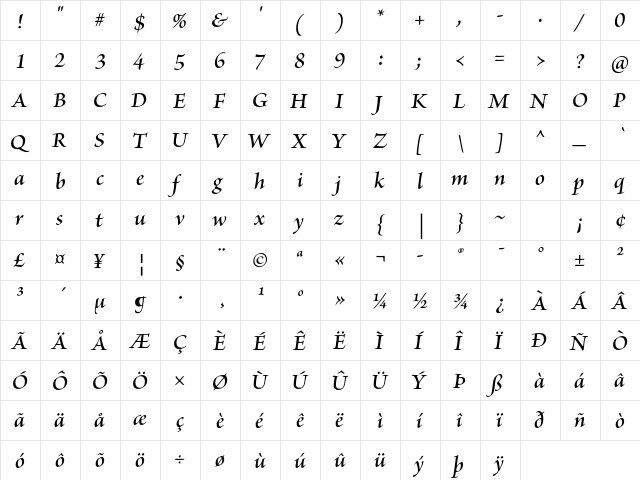
Brioso Pro Semibold Italic Subhead
| Designer | Robert Slimbach |
Design Context for Brioso Pro Typeface
Brioso Pro offers clean, dependable letterforms without strong stylistic allegiance, making it a practical choice for designers who need flexibility. The dynamic lean of this cut emphasises speed and emphasis in any layout. The heavy weight commands attention and anchors typographic hierarchies.
Pro Tip: Use Brioso Pro for emphasis, pull quotes, and subheadings where its slanted energy can add rhythm to the layout.